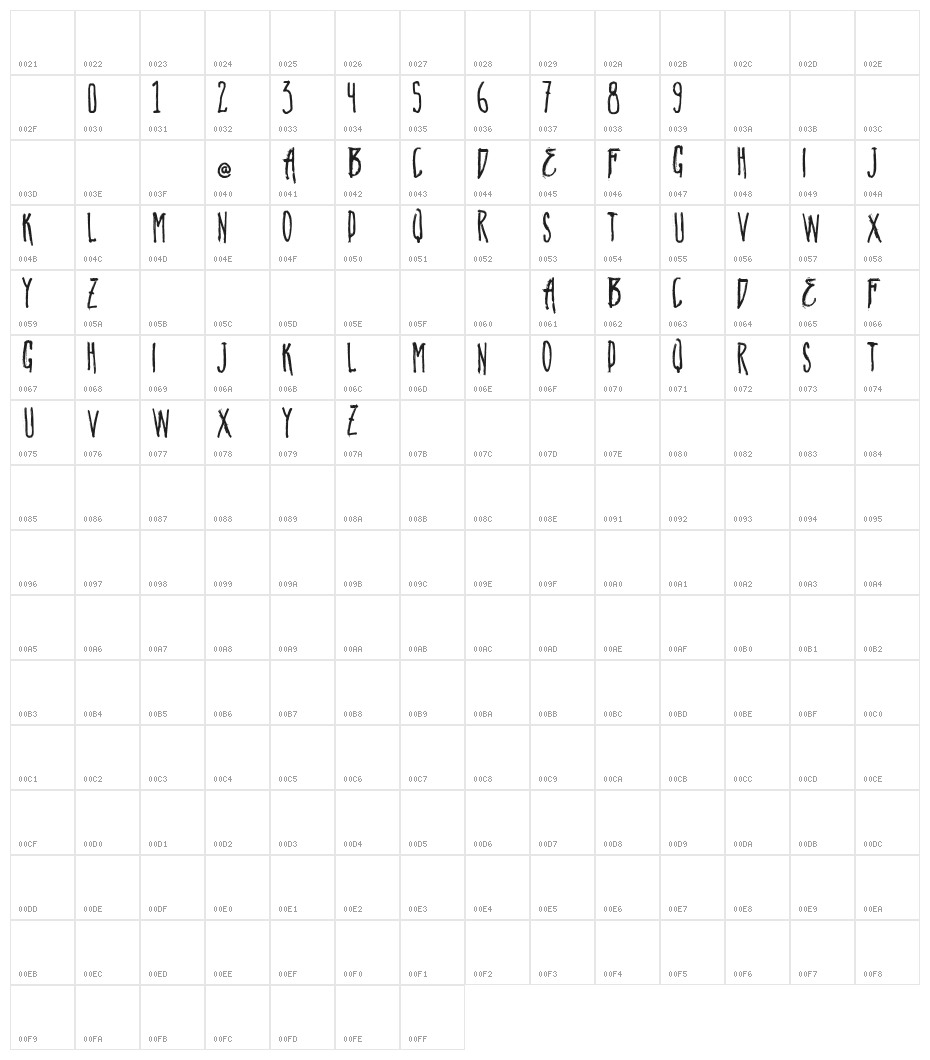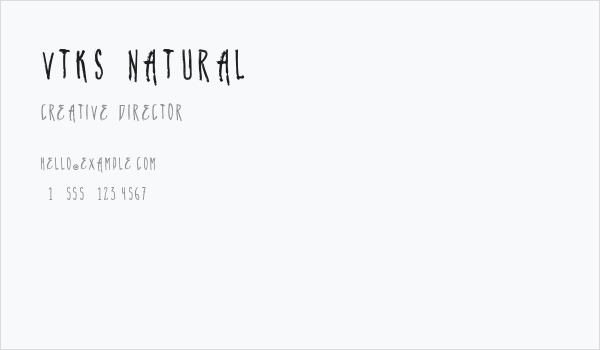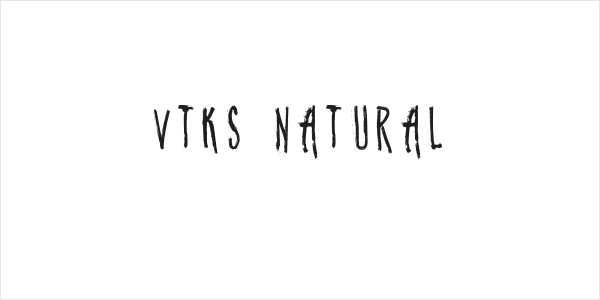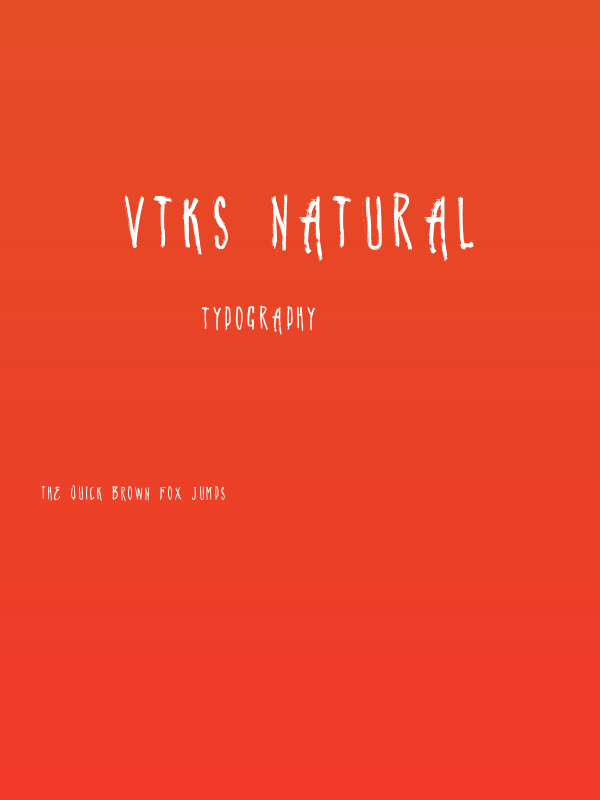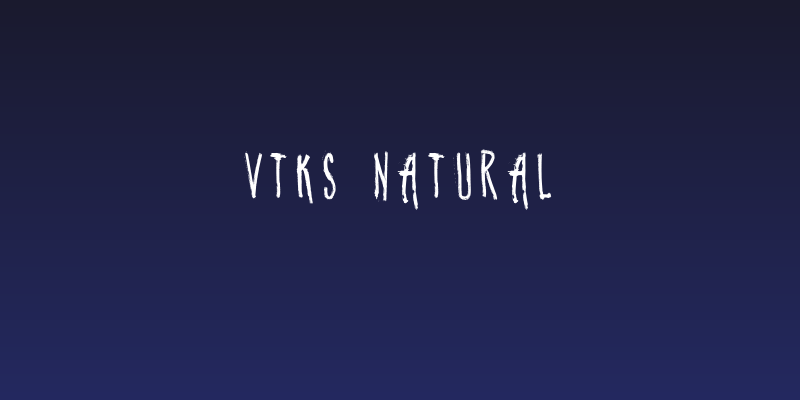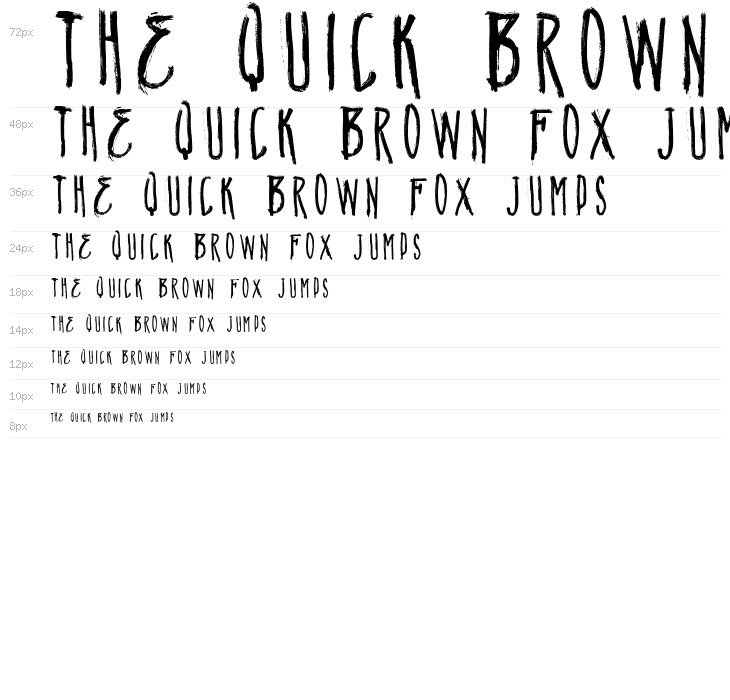
vtks natural Font
vtks natural Description
This font features a rugged, hand-drawn style with a brush-like texture, giving it a natural and organic appearance. The characters are uneven and slightly irregular, adding to the authenticity of the hand-crafted look. The strokes are bold and dynamic, with varying thicknesses that create a sense of movement and energy. The uppercase letters are tall and narrow, while the lowercase letters maintain a consistent style, complementing the overall aesthetic. The numbers and special characters follow the same design principles, ensuring a cohesive look across all elements.
| Use Case | Logos, Posters, Headlines |
| Proposed Projects | Ideal for projects that require a natural, artistic touch, such as posters, album covers, branding for eco-friendly products, or creative event invitations. |